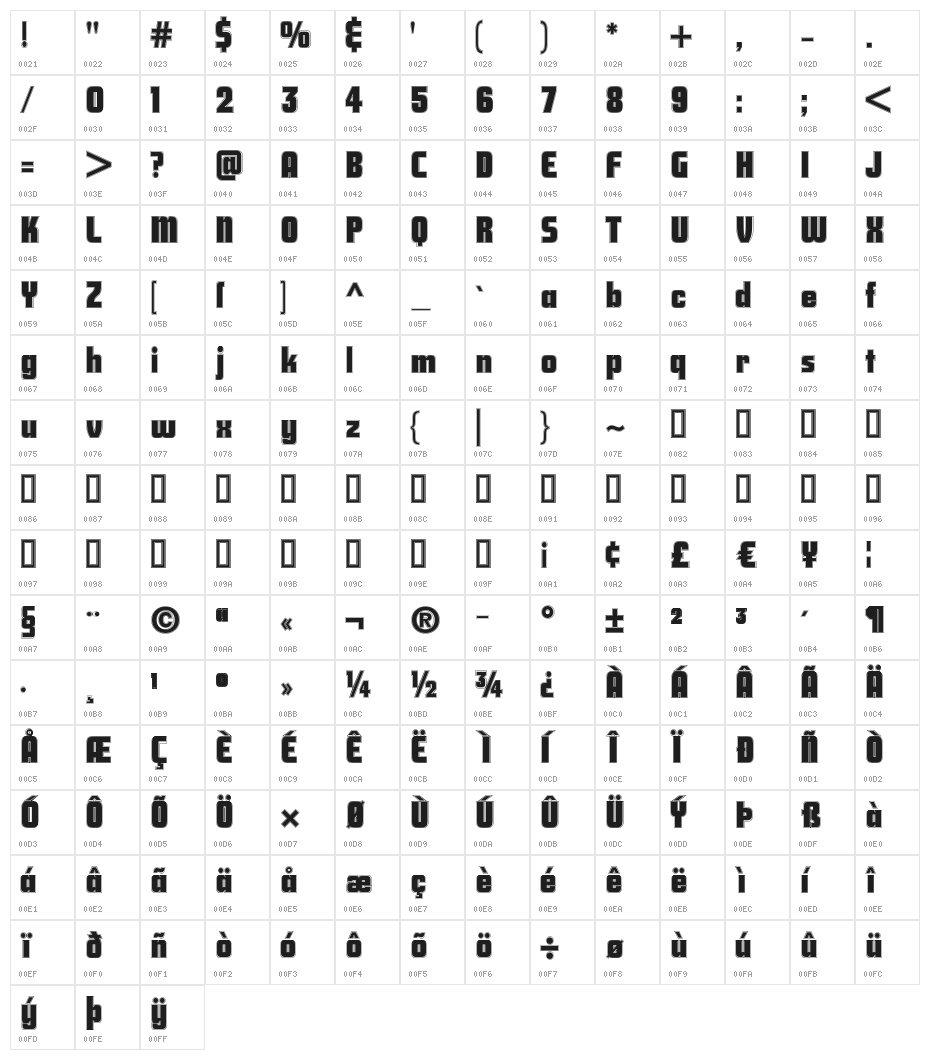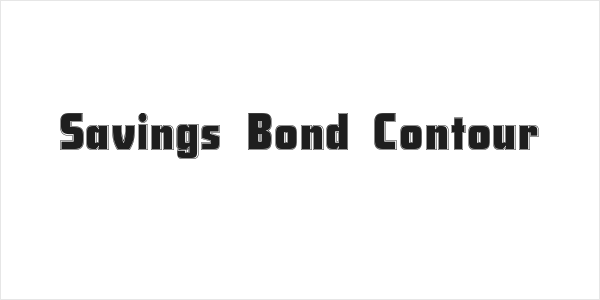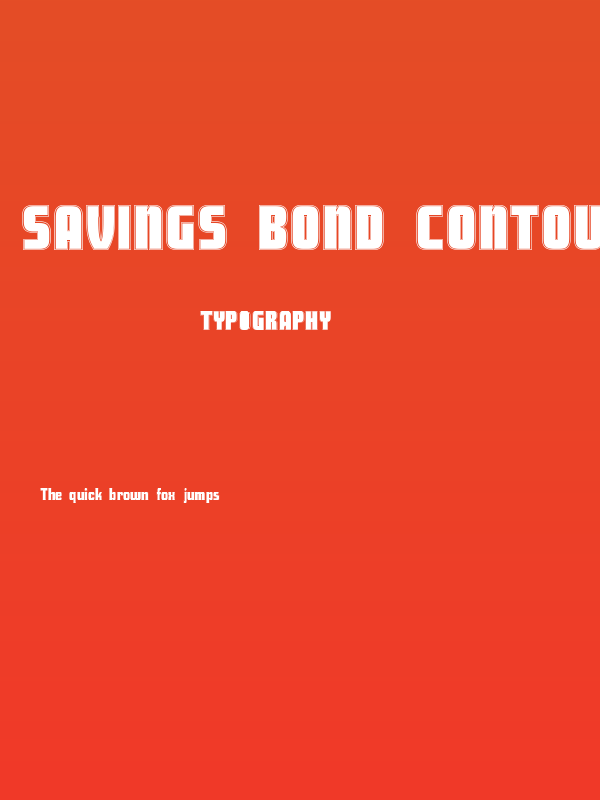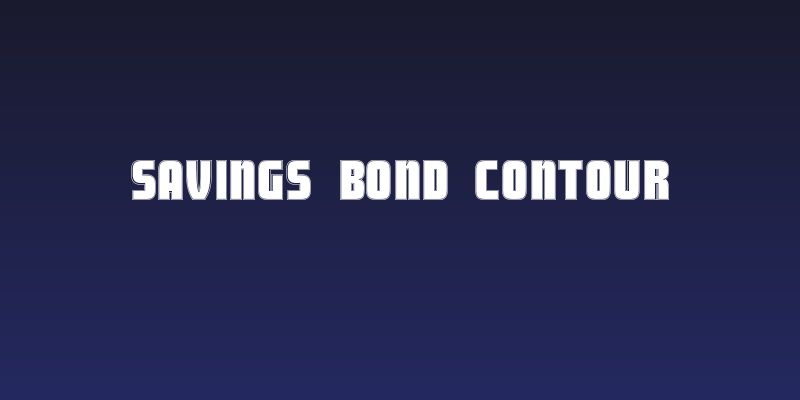
Savings Bond Contour Font
Savings Bond Contour Description
This font features a bold, impactful style with a strong presence. The characters are outlined, giving them a three-dimensional effect that enhances their visibility and makes them stand out. The uppercase and lowercase letters maintain a consistent width, contributing to a uniform appearance. The numerals and special characters are designed with the same bold outline, ensuring cohesion across all elements. The font's geometric shapes and clean lines make it suitable for modern designs, while its boldness adds a touch of vintage flair. The overall style is both decorative and functional, making it versatile for various applications.
| Overall Style | Modern, Vintage |
| Proposed Projects | Ideal for posters, logos, headlines, and any design requiring a bold, eye-catching font. |